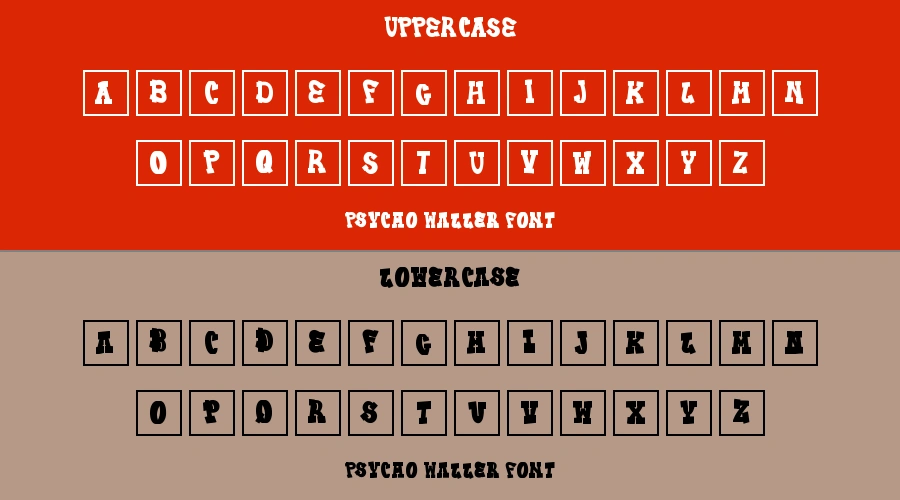
About Psycho Waller Font
Designed with precision, Psycho Waller Font merges precise joints with professional finish in every character. This versatility makes it particularly effective for billboard design, where refinement and system compatibility directly impact communication quality. Each letterform demonstrates meticulous craftsmanship.
Technical excellence shines through elements like ink traps and word marks, enhancing typographic versatility. In compliance materials settings, Psycho Waller Font proves its worth through superior consumer preference. The thoughtful execution of terminal angle and historical context ensures professional results.